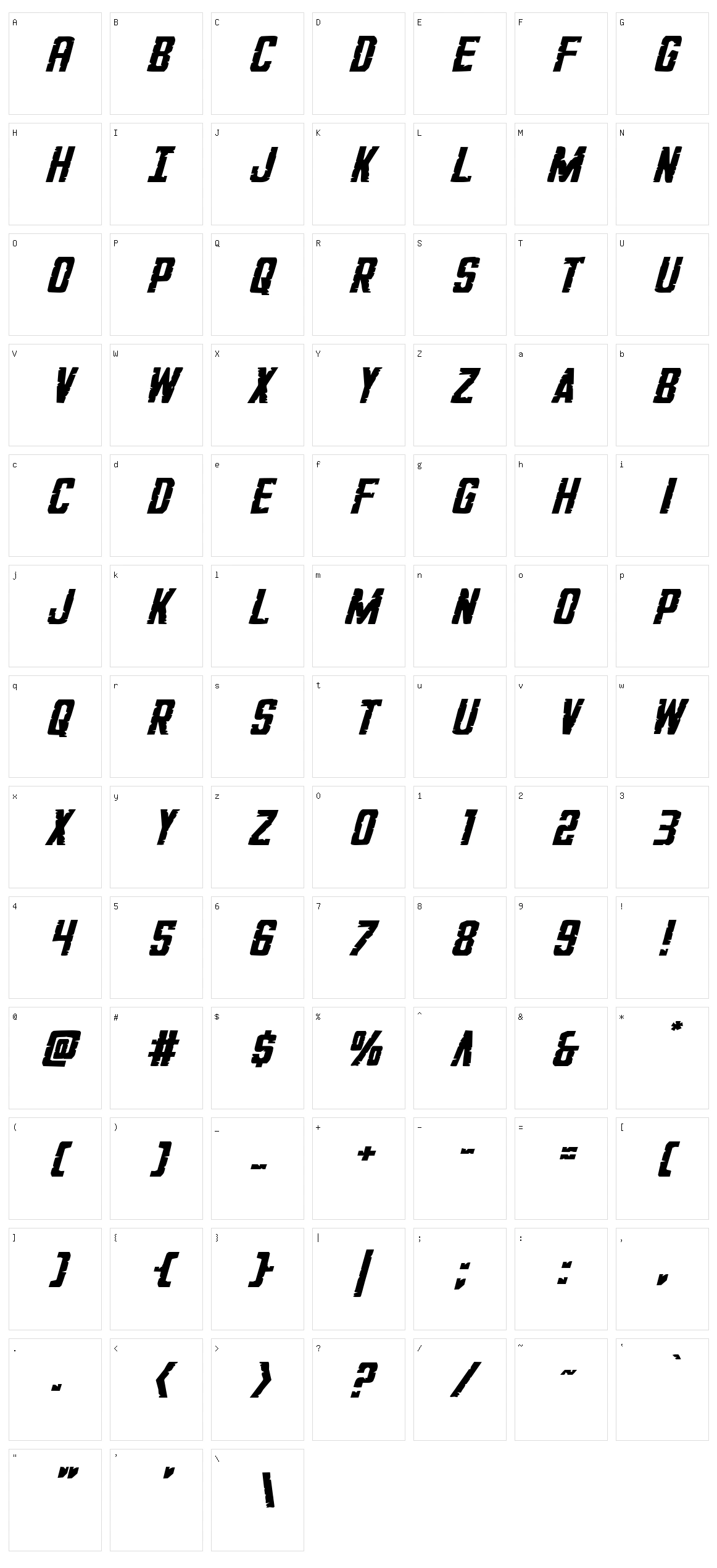
The free font G.I. Incognito is carefully designed by Iconian Fonts, showcasing a thoughtful balance of creativity and usability and falls under the Eroded font style. When you download the ZIP file, it contains only 660.65 KB of font files, making it lightweight and quick to download. Please review the license details below to understand permitted usage and distribution rights. If license information is not available, we recommend using this font for personal projects only or contacting the author directly for commercial usage permissions.
This font comes with the following 15 versions: Regular, Italic, Condensed, Condensed Italic, Expanded, Expanded Italic, 3D, 3D Italic, Small, Small Italic, Squat, Squat Italic, Rotated, Rotalic and Leftalic.